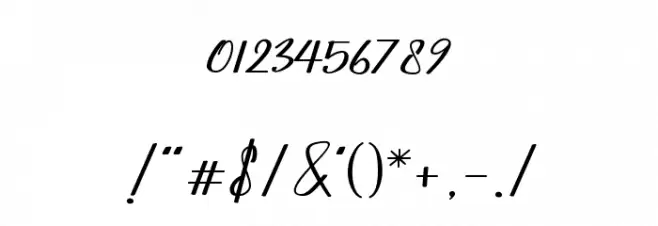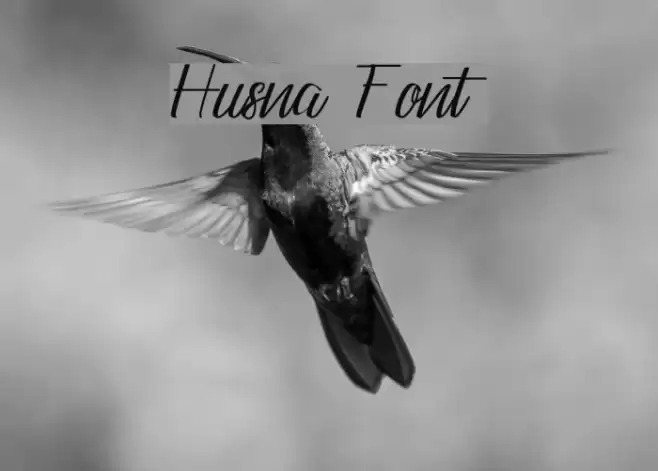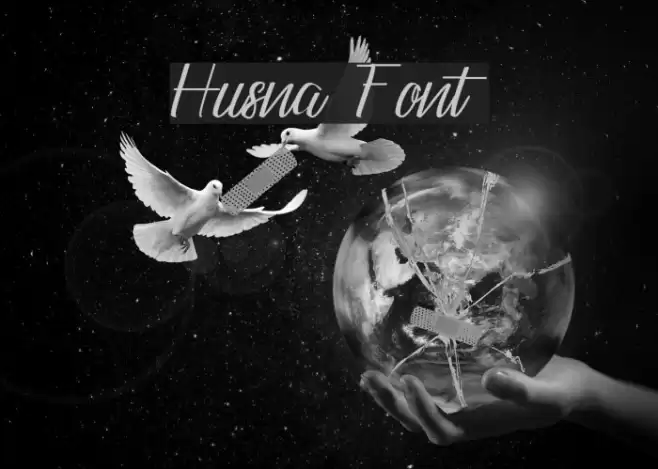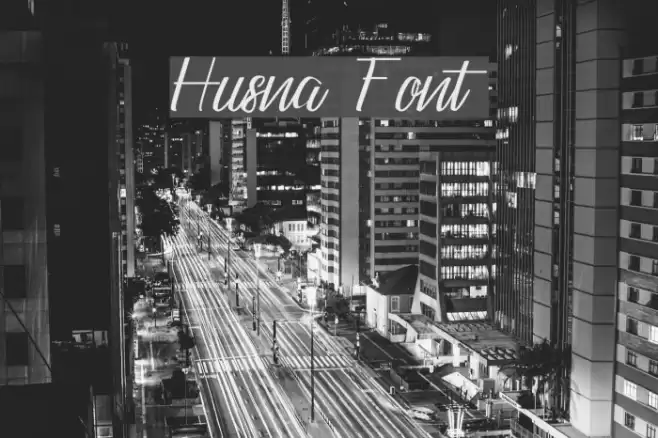
Husna Font
Husna Description
This font features a stylish and elegant script design, characterized by its flowing, cursive letterforms. The uppercase letters are slightly more angular, adding a touch of sophistication, while the lowercase letters maintain a smooth, connected appearance. The numerals and special characters are consistent with the script style, offering a cohesive look across all characters. This font exudes a sense of grace and fluidity, making it ideal for projects that require a personal or artistic touch.